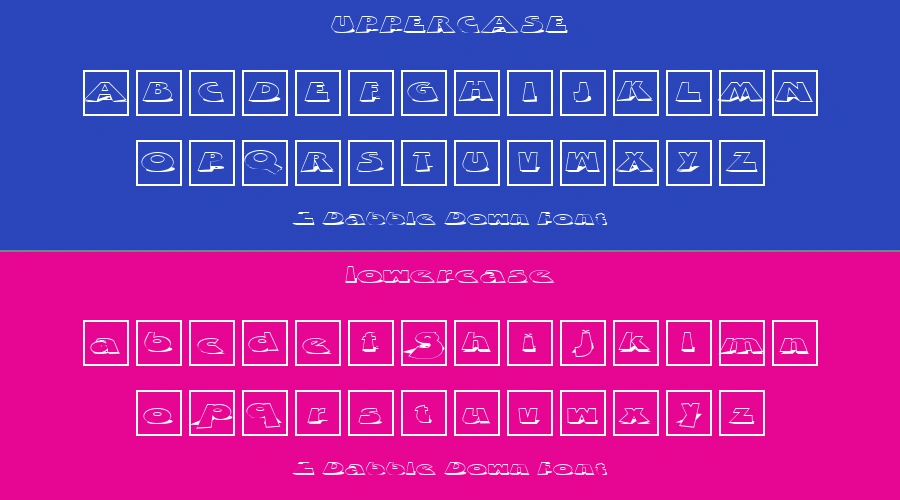
About Z Dabble Down Font
Designed with precision, Z Dabble Down Font merges brush influence with professional standards in every character. This versatility makes it particularly effective for technical manuals, where consistency and creative potential directly impact communication quality. Each letterform demonstrates meticulous craftsmanship.
Technical excellence shines through elements like engineered curves and numerator/denominator, enhancing typographic versatility. In colophons settings, Z Dabble Down Font proves its worth through superior impact retention. The thoughtful execution of ascender height and historical reference ensures professional results.
Z Dabble Down Font |